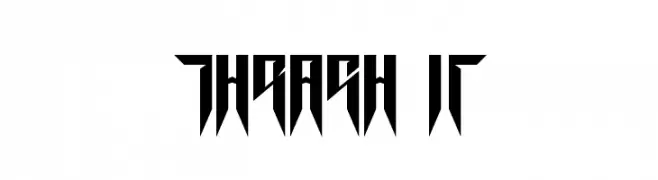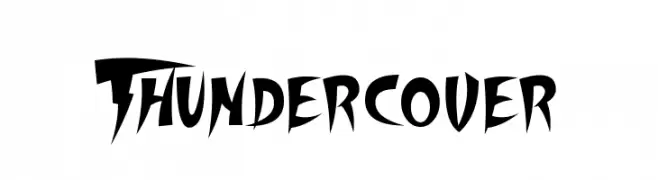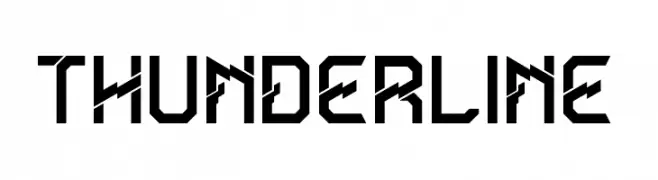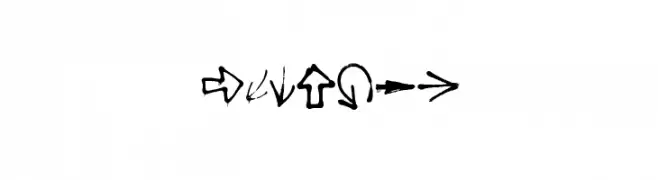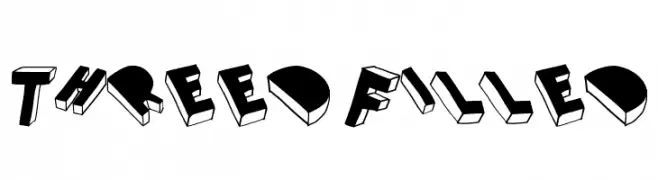
Hand-drawn arrow symbol font with expressive, sketchy lines.
A bold, angular font with a heavy metal aesthetic and sharp, geometric design.
A bold, three-dimensional font with a playful and dynamic style.
A bold, three-dimensional font with a filled, shadowed design for impactful visuals.
A bold, high-contrast serif font with elegant and sophisticated features.
A bold, angular font with a dynamic, lightning-inspired design.
A bold, angular font with dynamic slashes for a modern, edgy style.